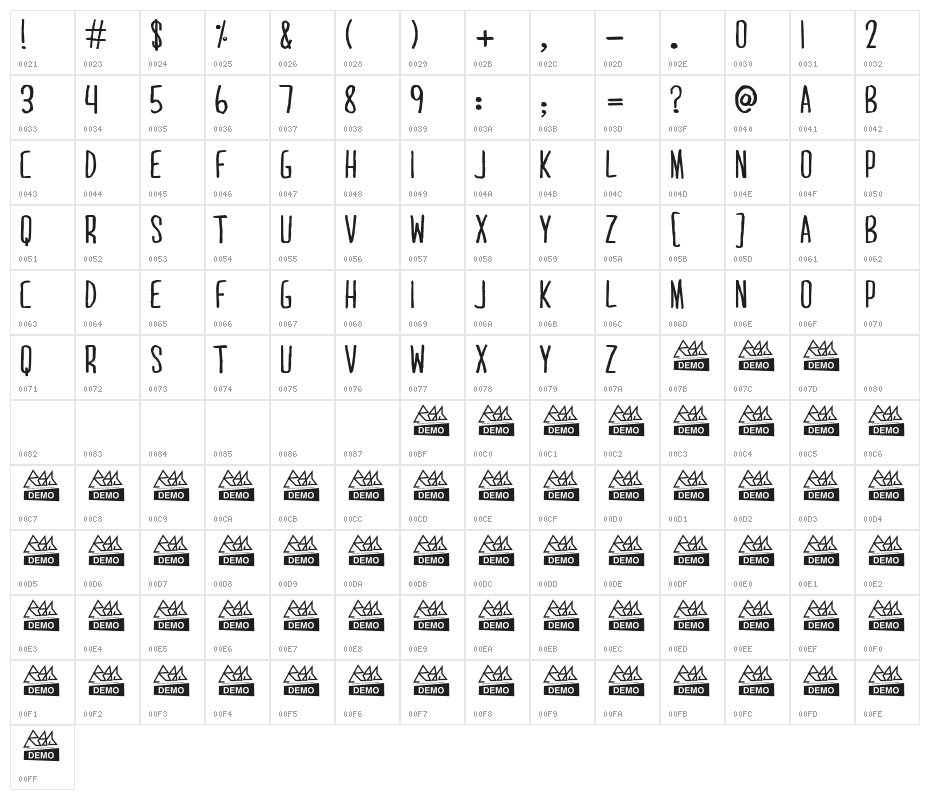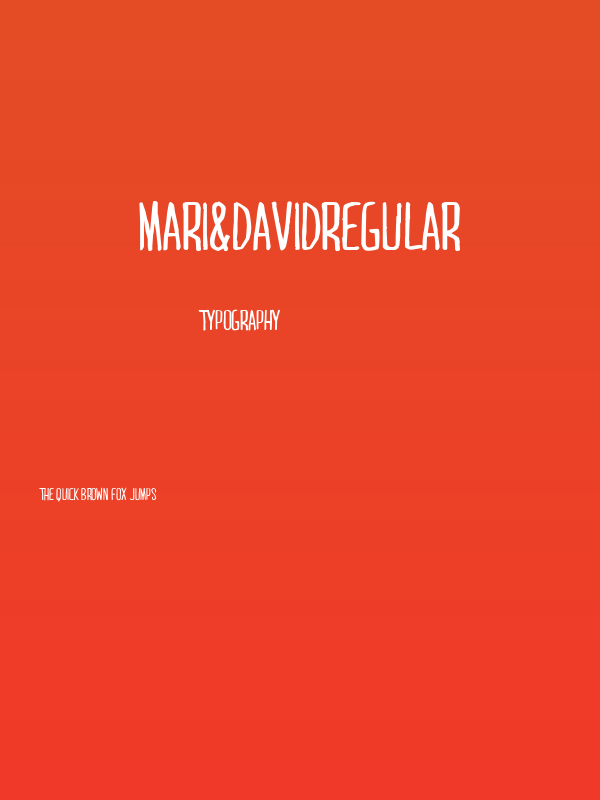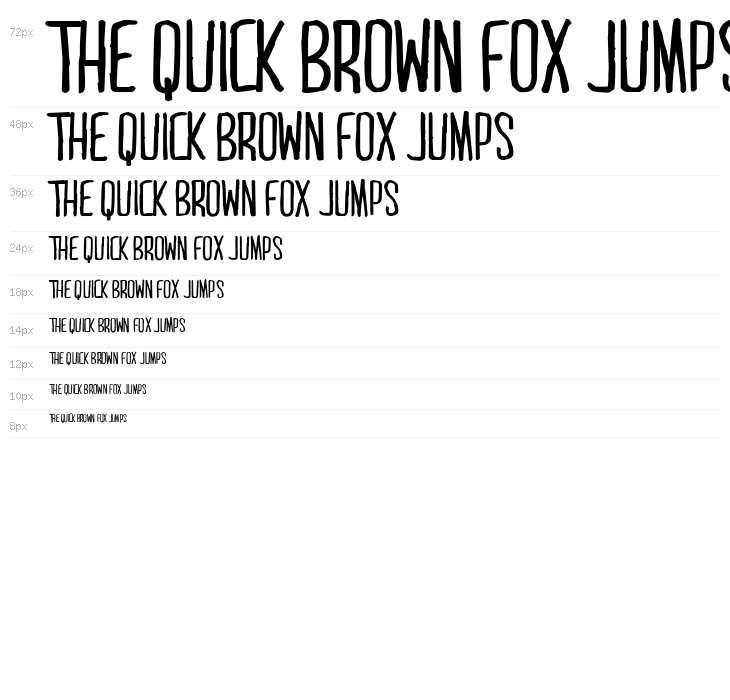
MARI&DAVIDRegular Font
MARI&DAVIDRegular Description
This font features a playful and casual handwritten style, characterized by its tall and narrow letterforms. The strokes are uneven, giving it a dynamic and lively appearance. The uppercase and lowercase letters maintain a consistent height, while the numbers and special characters blend seamlessly with the overall aesthetic. The font's informal and friendly vibe makes it suitable for creative and fun projects. Its unique style can add a personal touch to any design, making it stand out with its distinct personality.
| Use Case | Logos, Headlines, Informal Invitations |
| Proposed Projects | Ideal for greeting cards, children's books, playful branding, and social media graphics. |